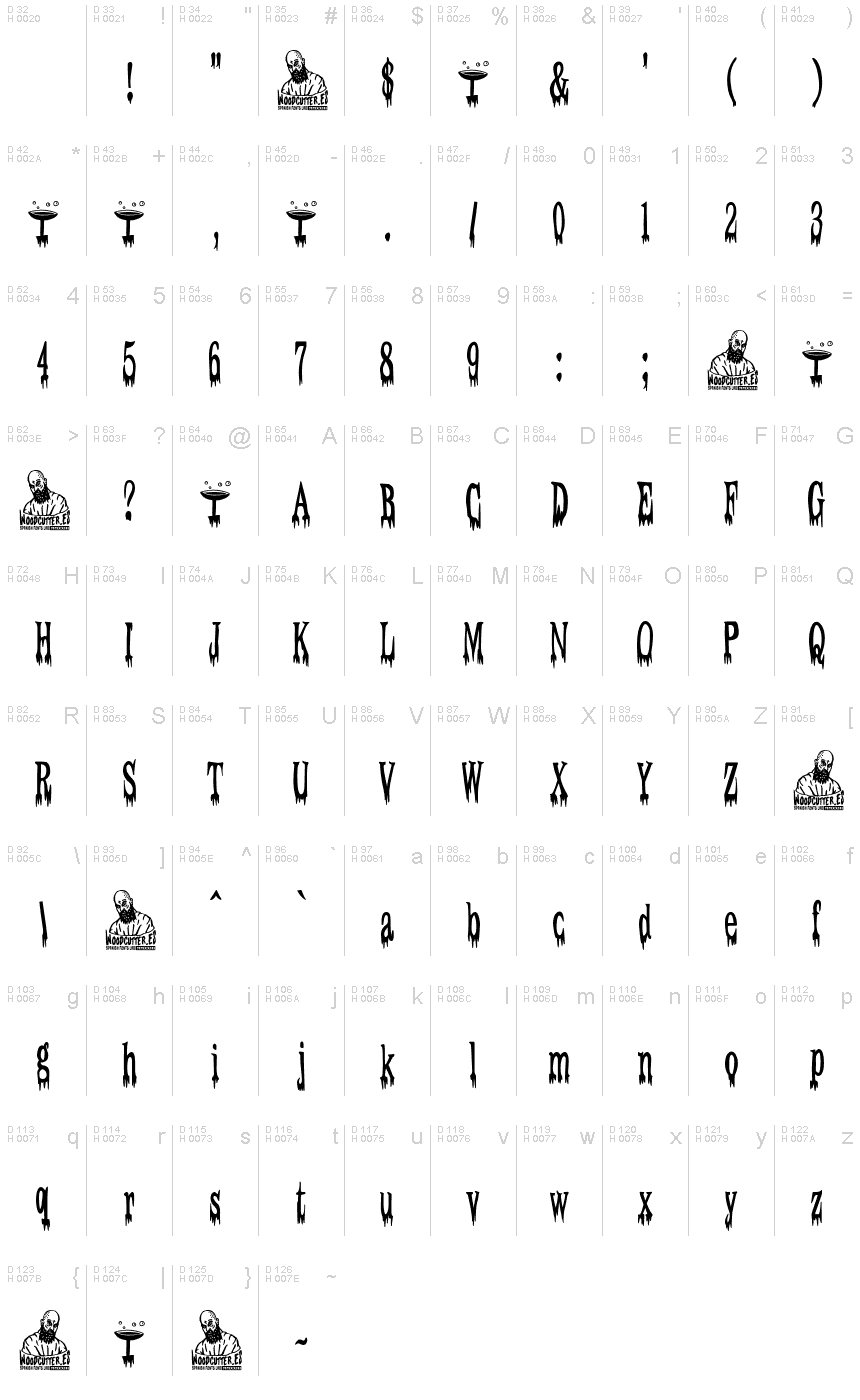
London Cocktail
London Cocktail, a hauntingly captivating display font by Woodcutter, brings an eerie touch to your designs. Its semi-light weight and extra-condensed width combine to create a spine-chilling atmosphere.
Perfect for Halloween-themed projects, horror movie posters, or haunted house event flyers; this font drips with blood-like details that leave a lasting impression.
Add a touch of terror to your designs with London Cocktail and send shivers down your audience's spines.